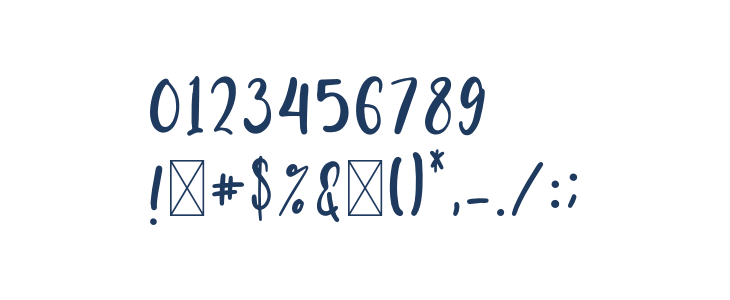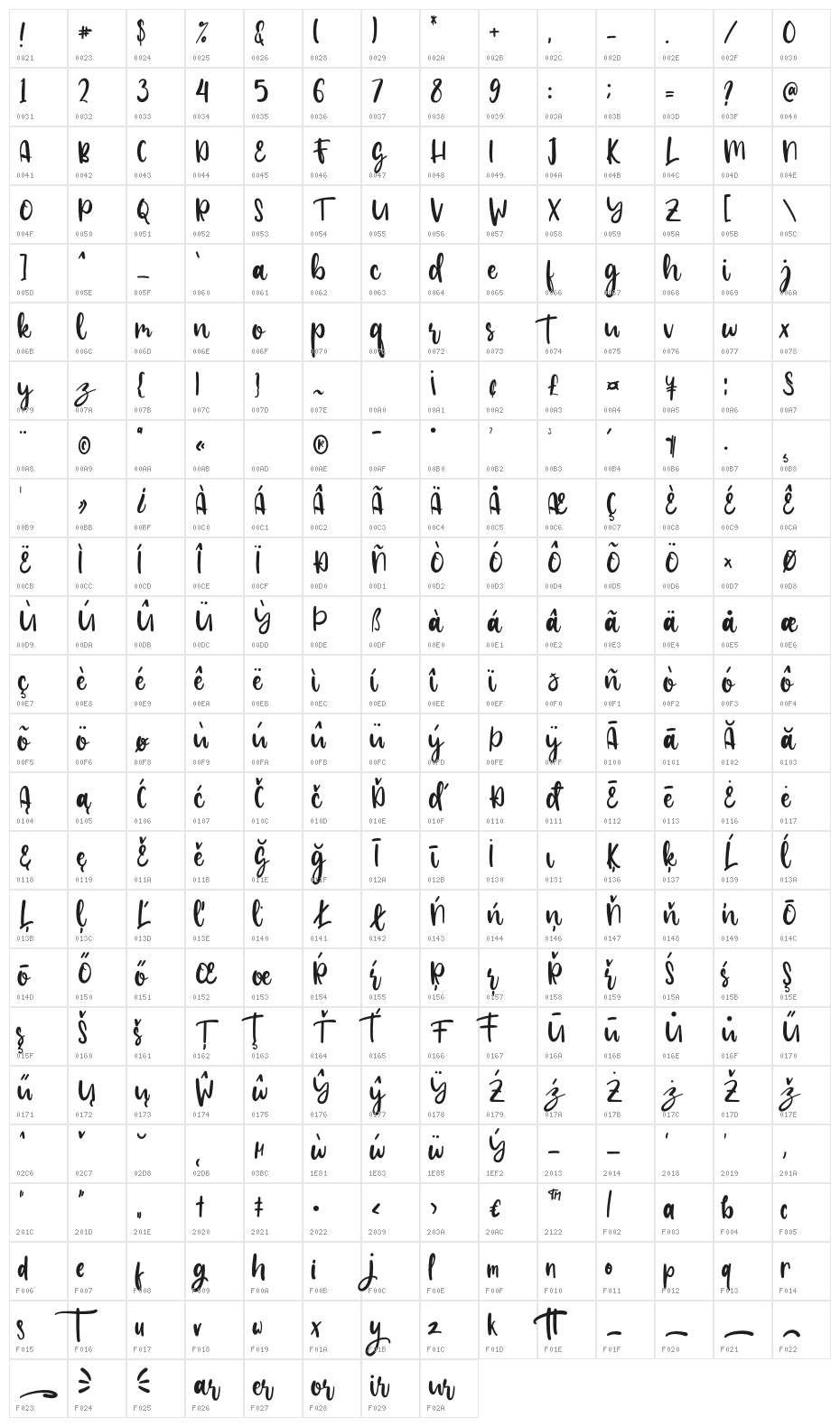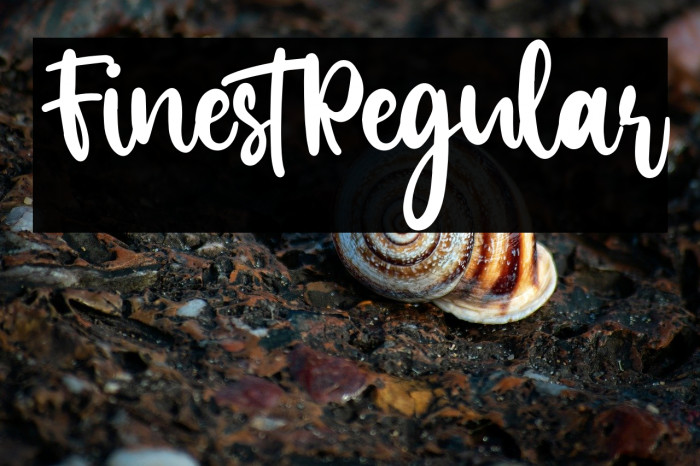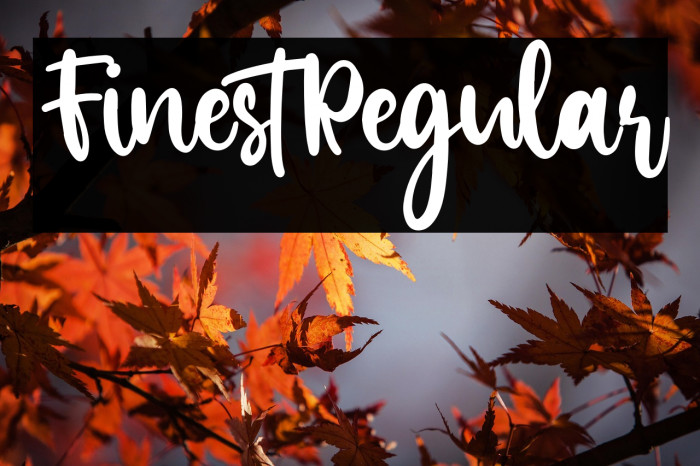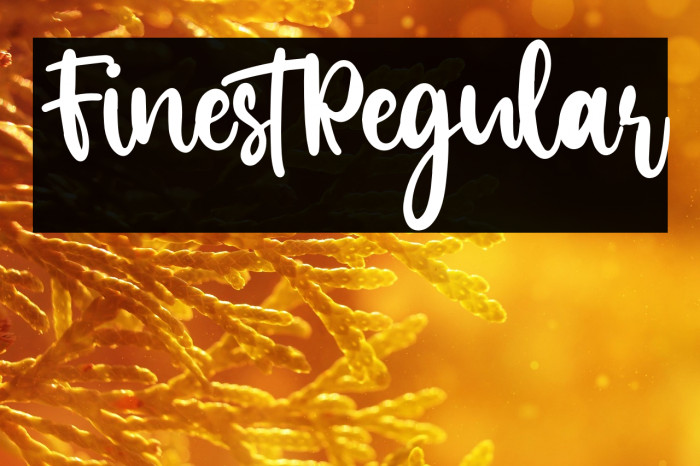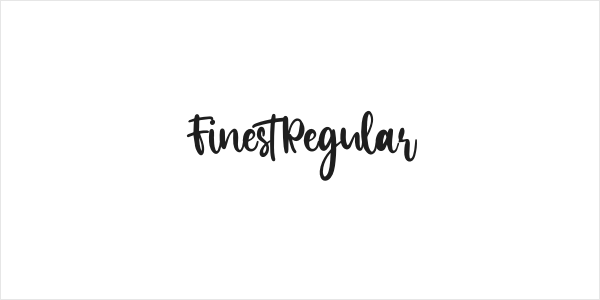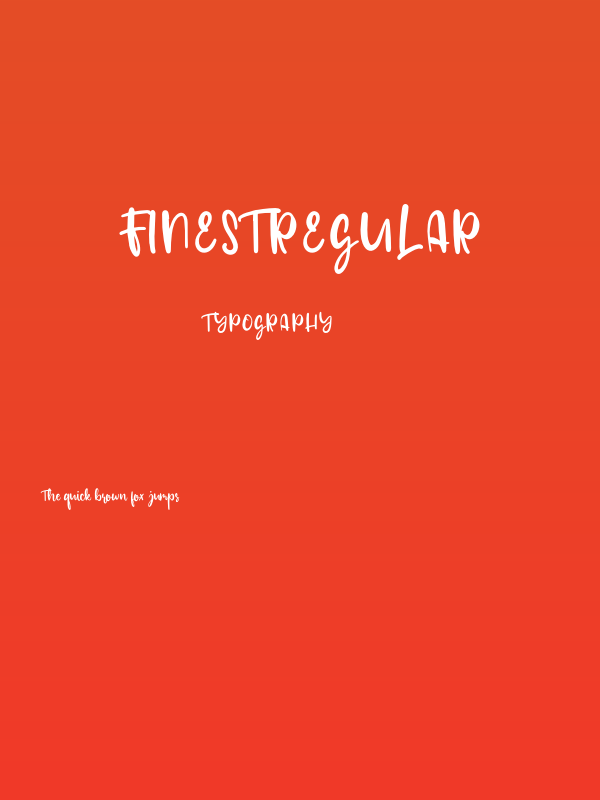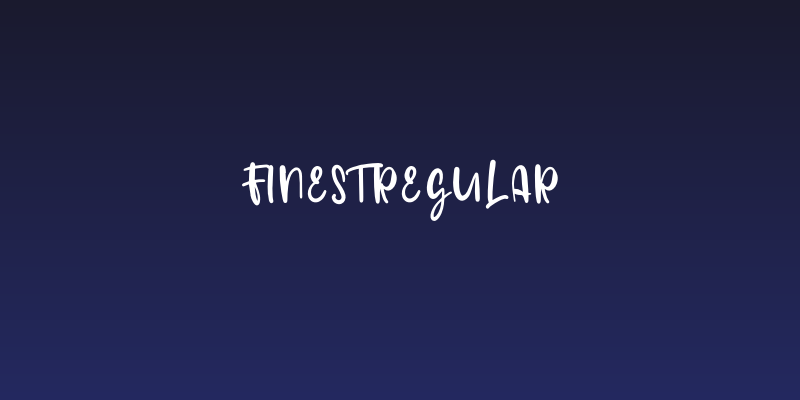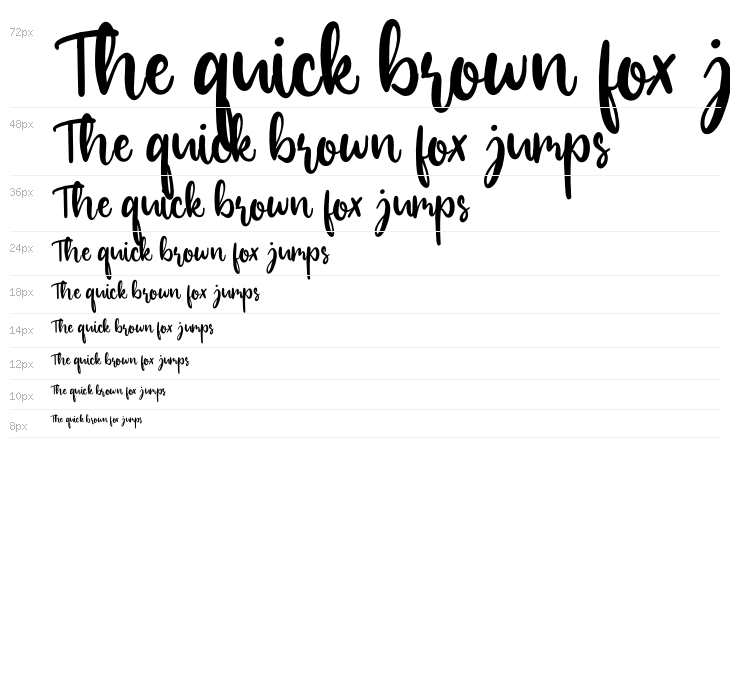
FinestRegular Font
FinestRegular Description
This font features a lively and playful handwritten style, characterized by its bold and fluid strokes. The uppercase letters exhibit a consistent height with a slight slant, adding a dynamic feel. Lowercase letters maintain a similar style, with some characters like 'g' and 'y' having distinctive loops. The numerals are clear and bold, matching the overall aesthetic. Special characters are creatively integrated, maintaining the font's energetic vibe. The font's overall appearance is both casual and artistic, making it suitable for projects that require a personal touch.